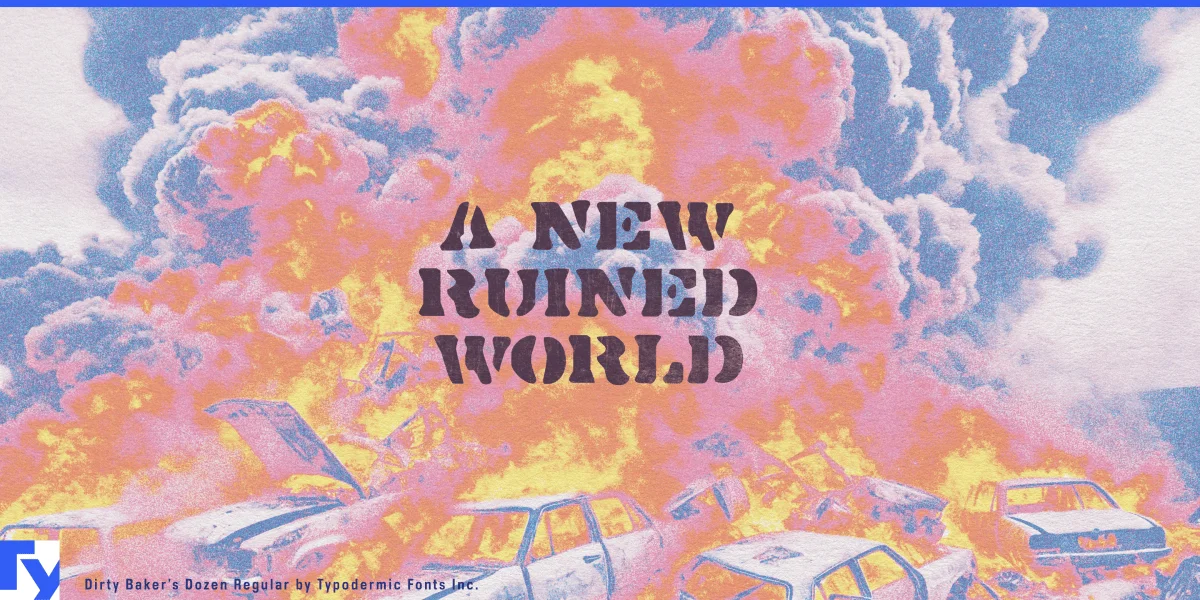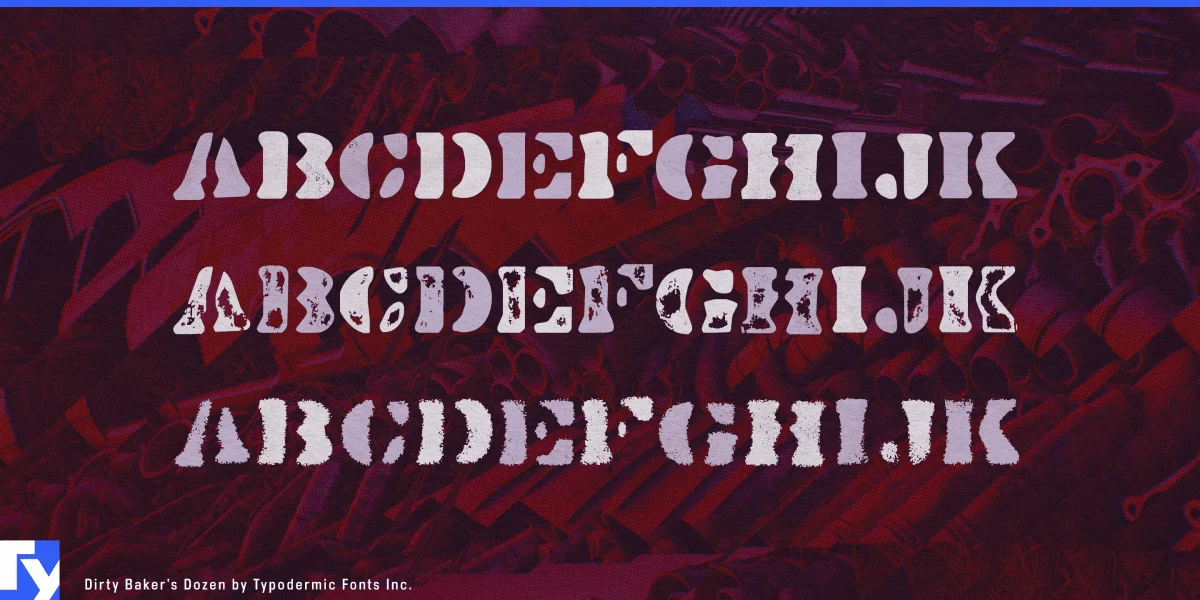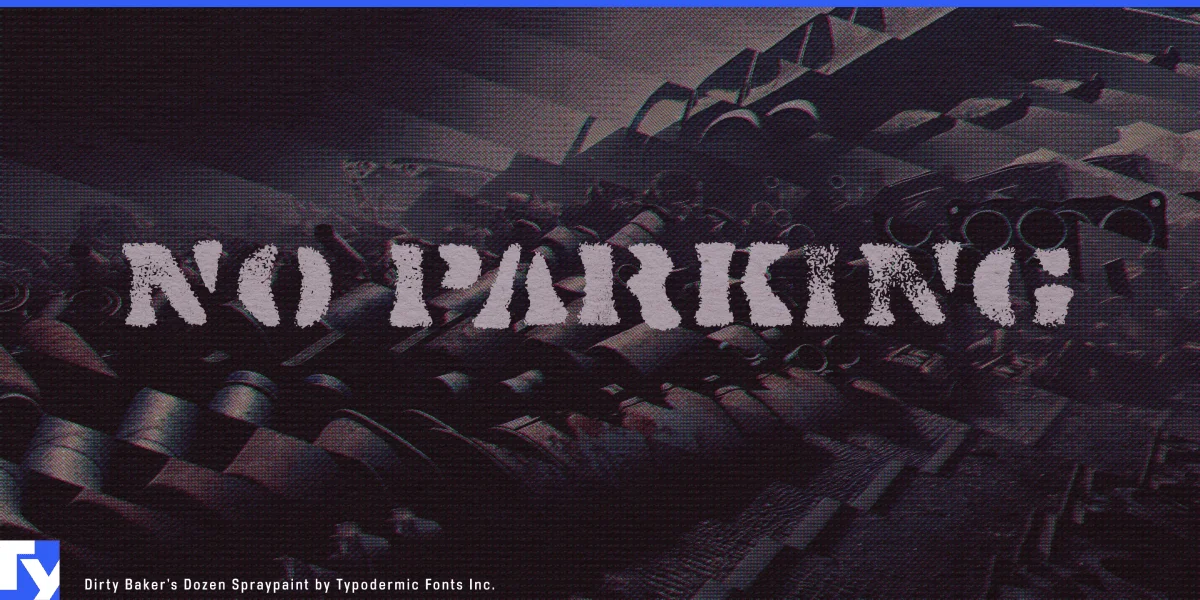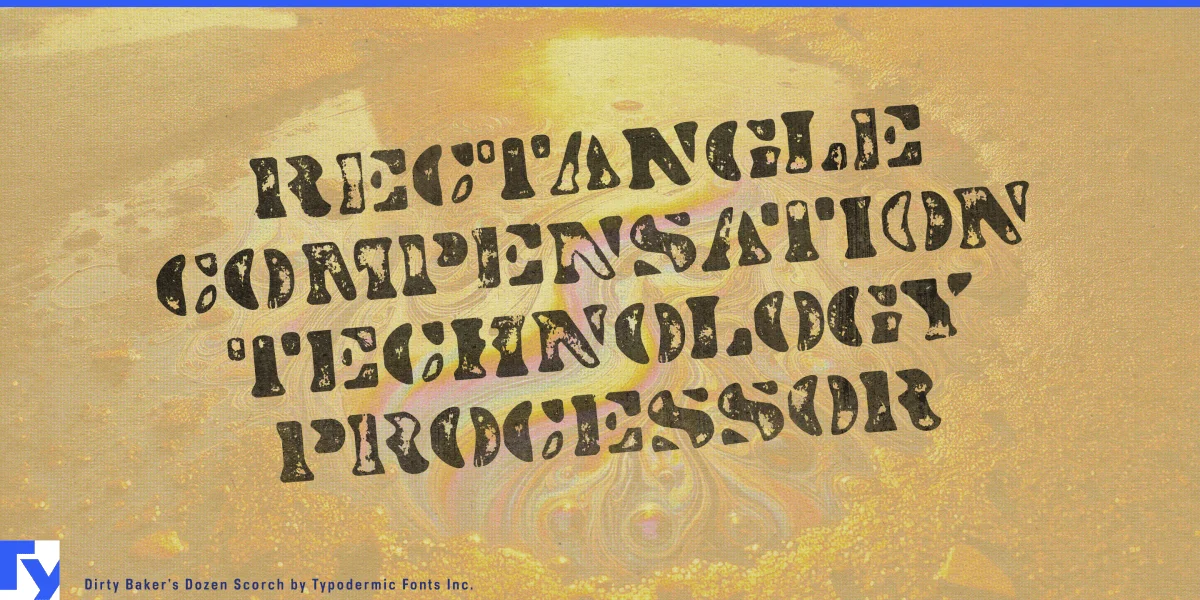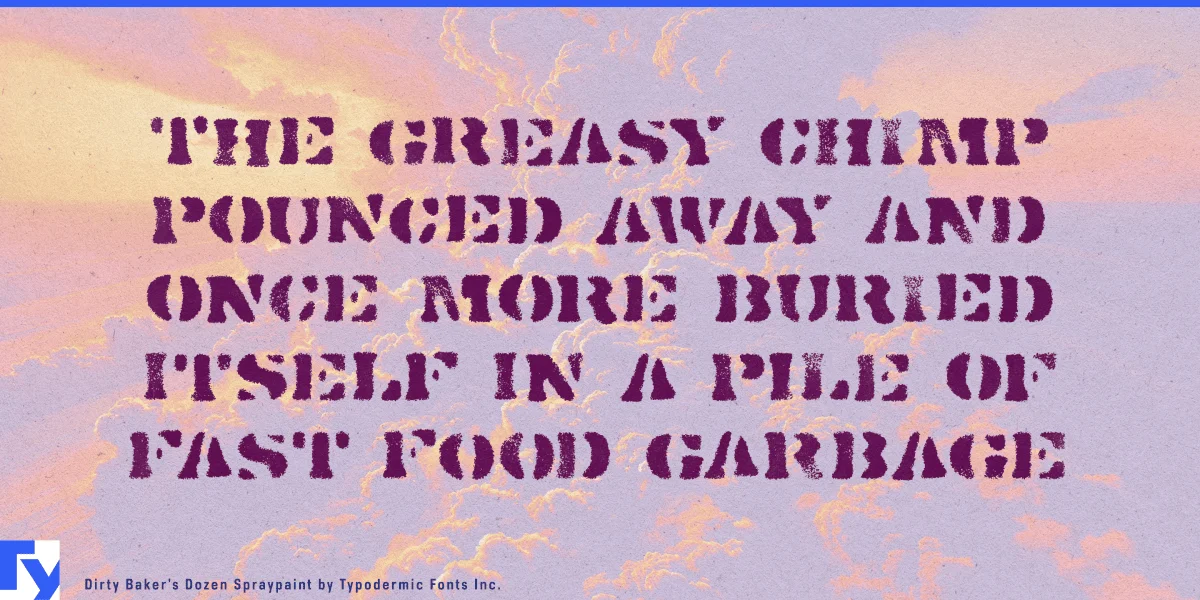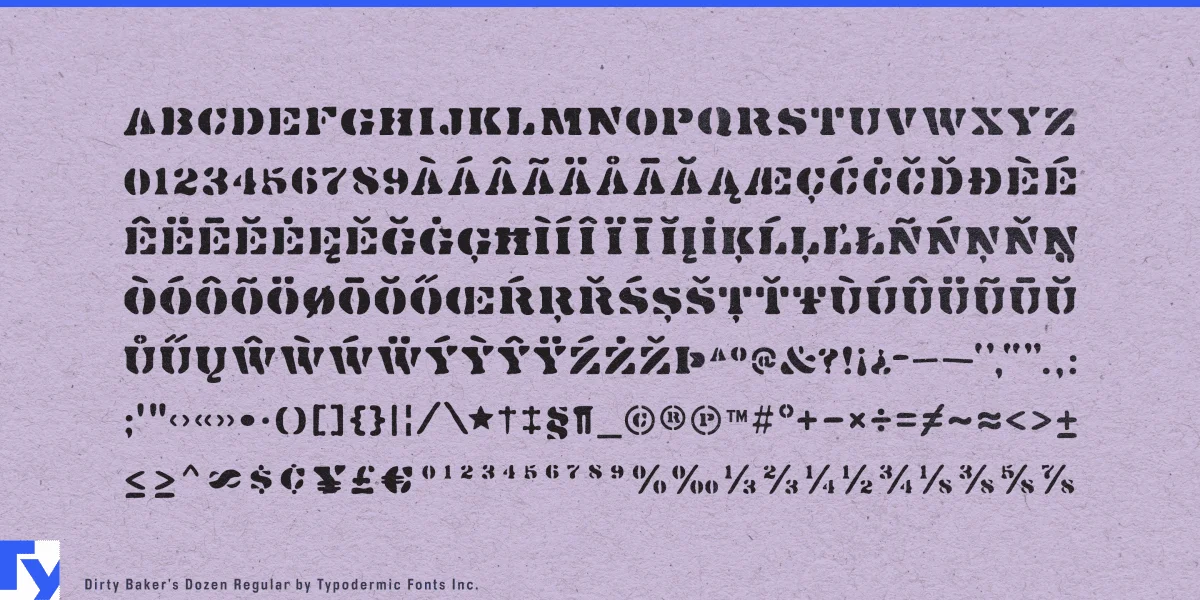
Dirty Baker’s Dozen: The typeface that turns words into urban legends. Born from a weathered stencil, this Typodermic Fonts creation isn’t just type—it’s typographic archaeology, unearthing vintage street art for a new generation.
Armed with Scorch and Spraypaint styles, Dirty Baker’s Dozen transforms your designs from mere text to visceral urban poetry. Forget cookie-cutter letter pairs—this font serves up unique combinations that crackle with authenticity, as if each word was individually tagged under cover of night. Picture your slogans seared onto protest posters, your brand name spraypainted across digital landscapes. This font doesn’t just deliver text—it delivers attitude, a visual manifesto that demands to be read.
Speaking the global language of the streets, Dirty Baker’s Dozen supports a vast array of Latin-based European writing systems. From Lisbon’s sun-baked walls to Budapest’s neon-lit alleys, your message retains its raw power across borders.
Ready to bake up some typographic trouble? Embrace Dirty Baker’s Dozen and break free from sanitized corporate fonts. In a world where every wall is a potential canvas, this font doesn’t just type—it tags, stencils, and scorches, turning your words into a battlecry for the streets.